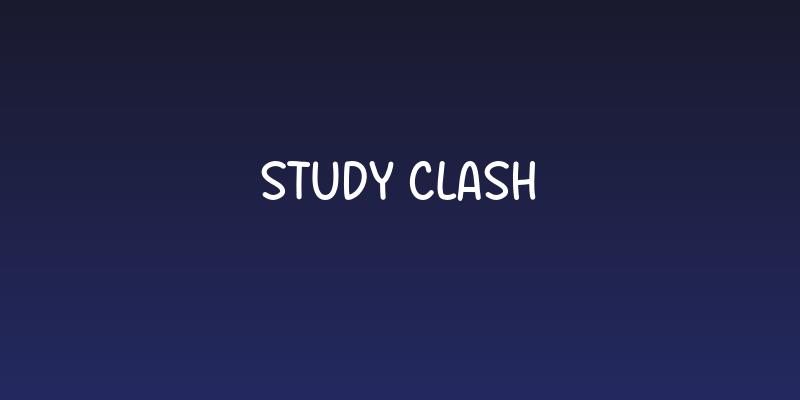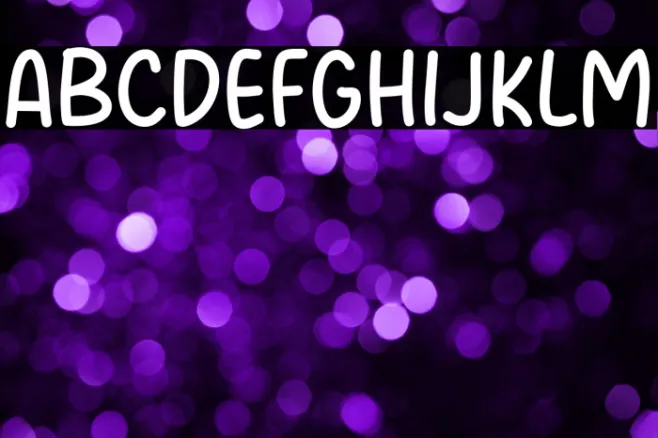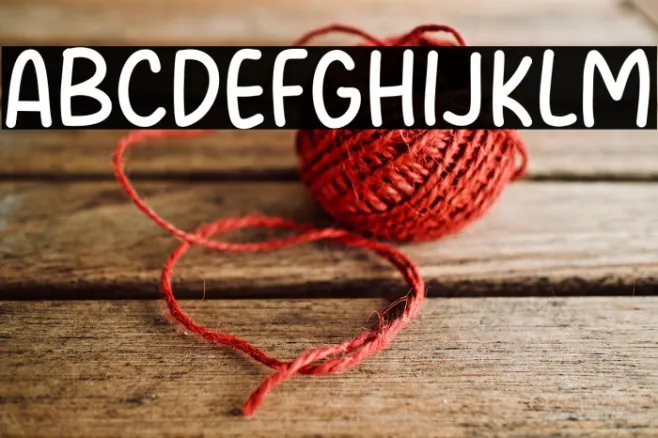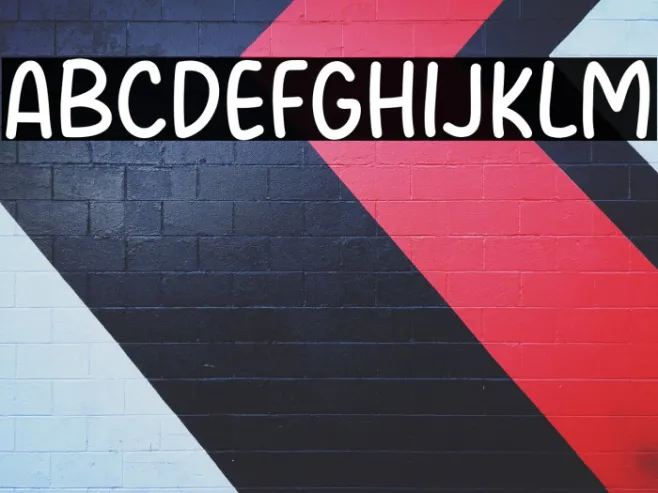
Study Clash Font
Study Clash Description
This font features a playful and casual handwritten style, characterized by its rounded and slightly uneven strokes. The letters have a friendly and approachable appearance, with a consistent thickness throughout. The uppercase and lowercase letters maintain a cohesive look, while the numbers and special characters blend seamlessly with the overall design. The font's informal nature makes it suitable for projects that require a personal touch or a relaxed vibe.